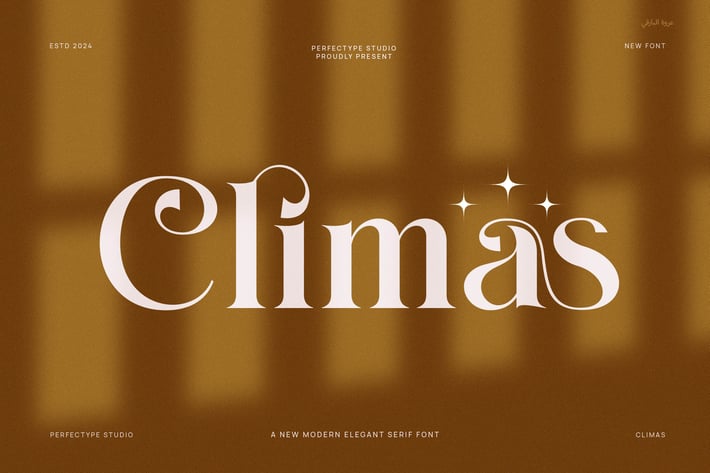
Climas Elegant Ligature Serif Font
Climas is an elegant serif font designed with smooth ligatures that add a unique touch to any project. First, its refined curves and classic serif details create a timeless yet modern look. Because of this, it is perfect for brands and designers who want to add sophistication and style.
Moreover, Climas works well across many uses. You can apply it to logos, invitations, headlines, packaging, and editorial layouts. In addition, the font’s clear letterforms make it easy to read at various sizes. So, it adapts smoothly for both print and digital projects.
Furthermore, Climas balances elegance with readability. The ligatures provide a graceful flow without overcrowding the text. Its carefully crafted strokes bring harmony and warmth. This means it is ideal for luxury brands, weddings, fashion, and editorial design. Besides, Climas pairs well with simple sans serif fonts to create eye-catching combinations.
Another benefit is its versatility. Climas performs well in large titles and smaller body text alike. As a result, it helps you create polished and professional work without losing clarity. In fact, its blend of classic serif style and stylish ligatures makes your message both memorable and classy.
To sum up, Climas offers:
- Elegant serif design with smooth ligatures
- Clear and readable letter shapes
- Versatile for branding, print, and digital
- Perfect for luxury, weddings, fashion, editorial
- Pairs well with sans serif fonts
- Balanced, warm, and professional look
Overall, Climas is an elegant serif font with beautiful ligatures that enhance clarity and charm. This way, your designs will feel timeless and stylish.